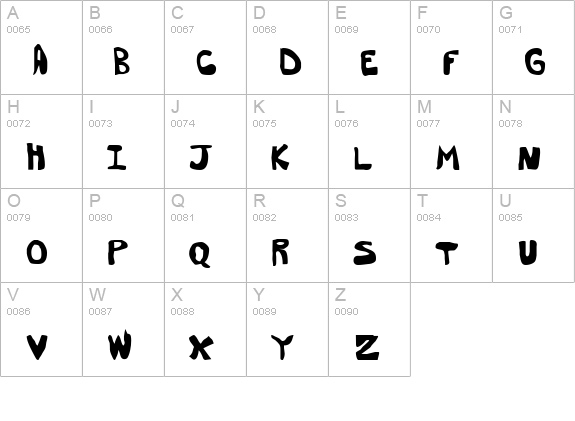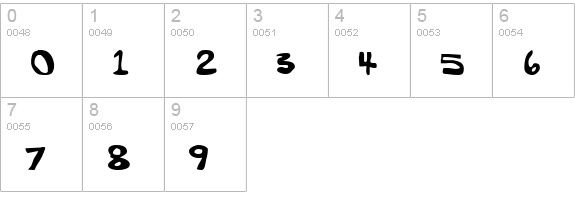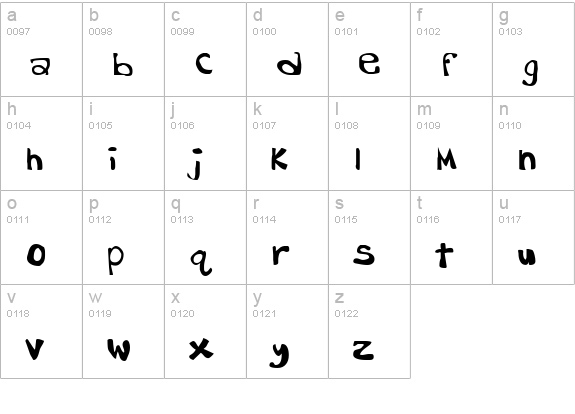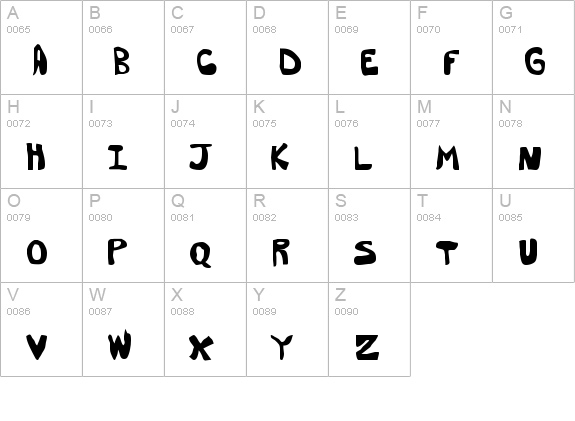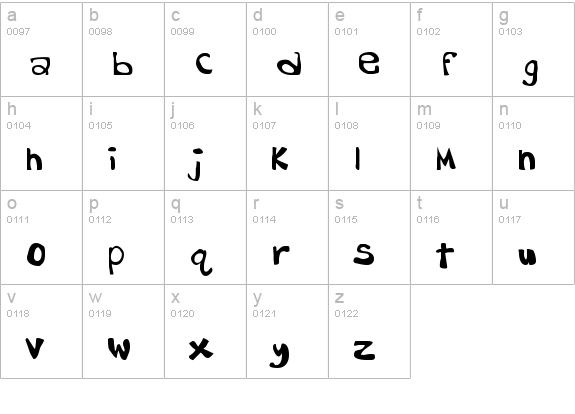
Dorkbutt Font Details
Dorkbutt font is a whimsical and playful typeface that exudes charm and personality. With its quirky and fun design, this font is perfect for adding a touch of lightheartedness to any project. Dorkbutt features unique letterforms with a hand-drawn look that gives it a creative and artistic feel. Whether you're working on a poster, greeting card, or social media graphic, this font will surely make your text stand out. The best part about Dorkbutt font is that it is completely free to download. You can get your hands on this delightful typeface at FontsMarket.com, where you can access a wide range of free fonts for all your design needs. Don't miss out on the opportunity to add Dorkbutt font to your collection and infuse your projects with a dose of fun and whimsy.